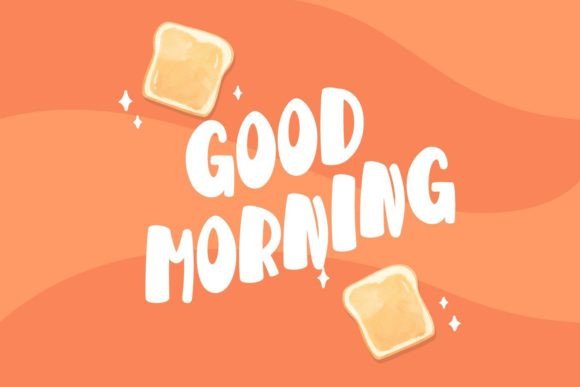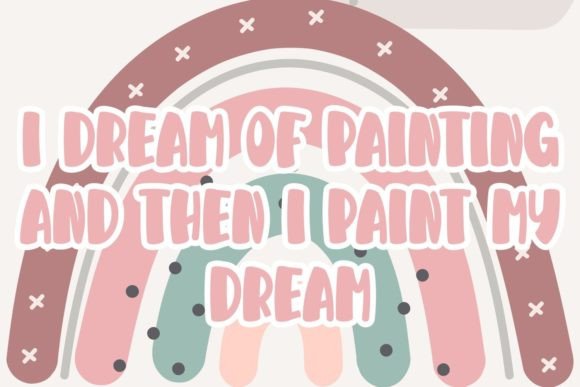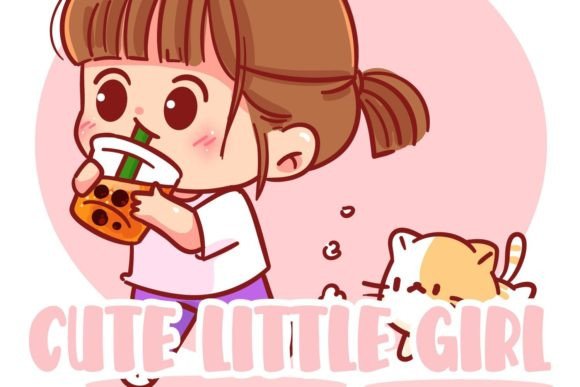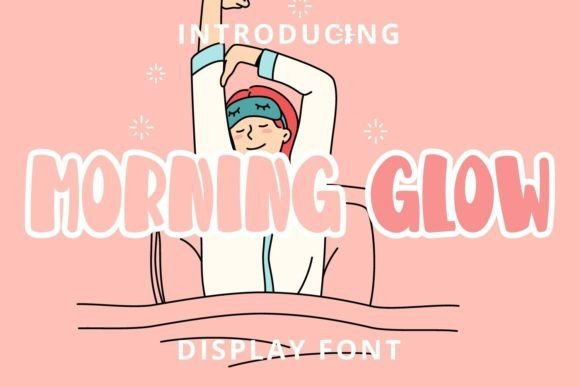
Introduction to Morning Glow Font
Morning Glow is a fun and cute display font.
Use it to create outstanding covers, banners, product packaging, quotes, storybooks, and so much more .